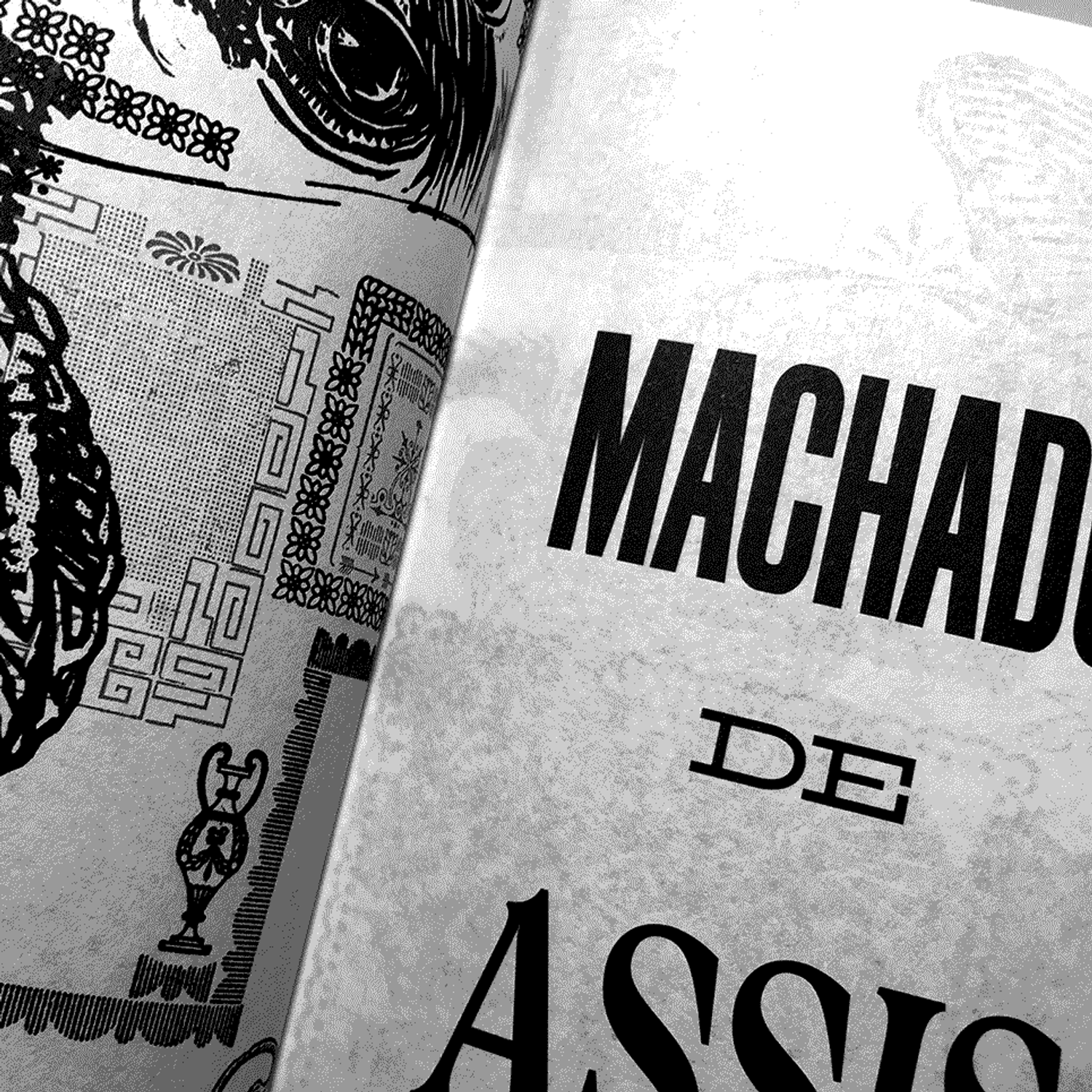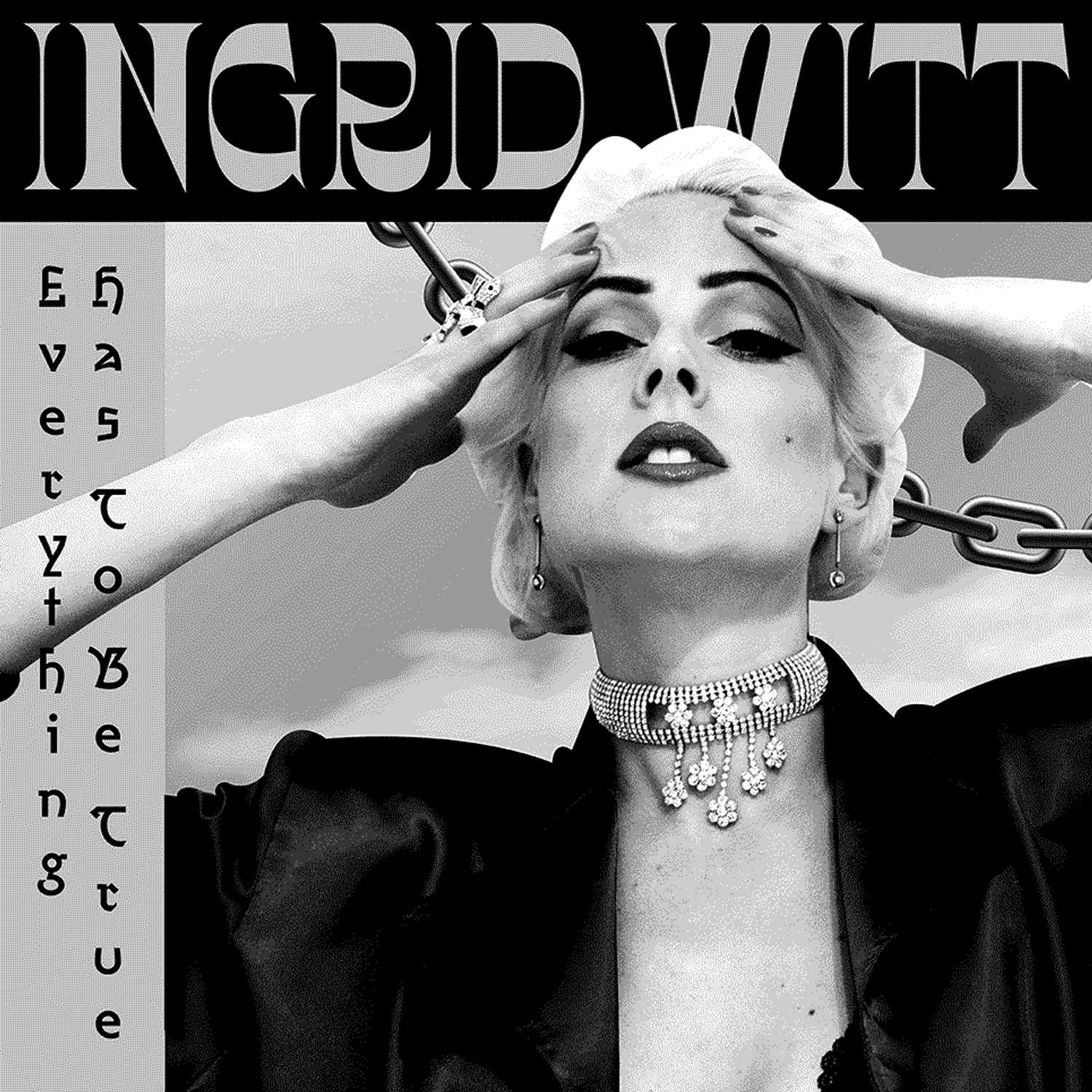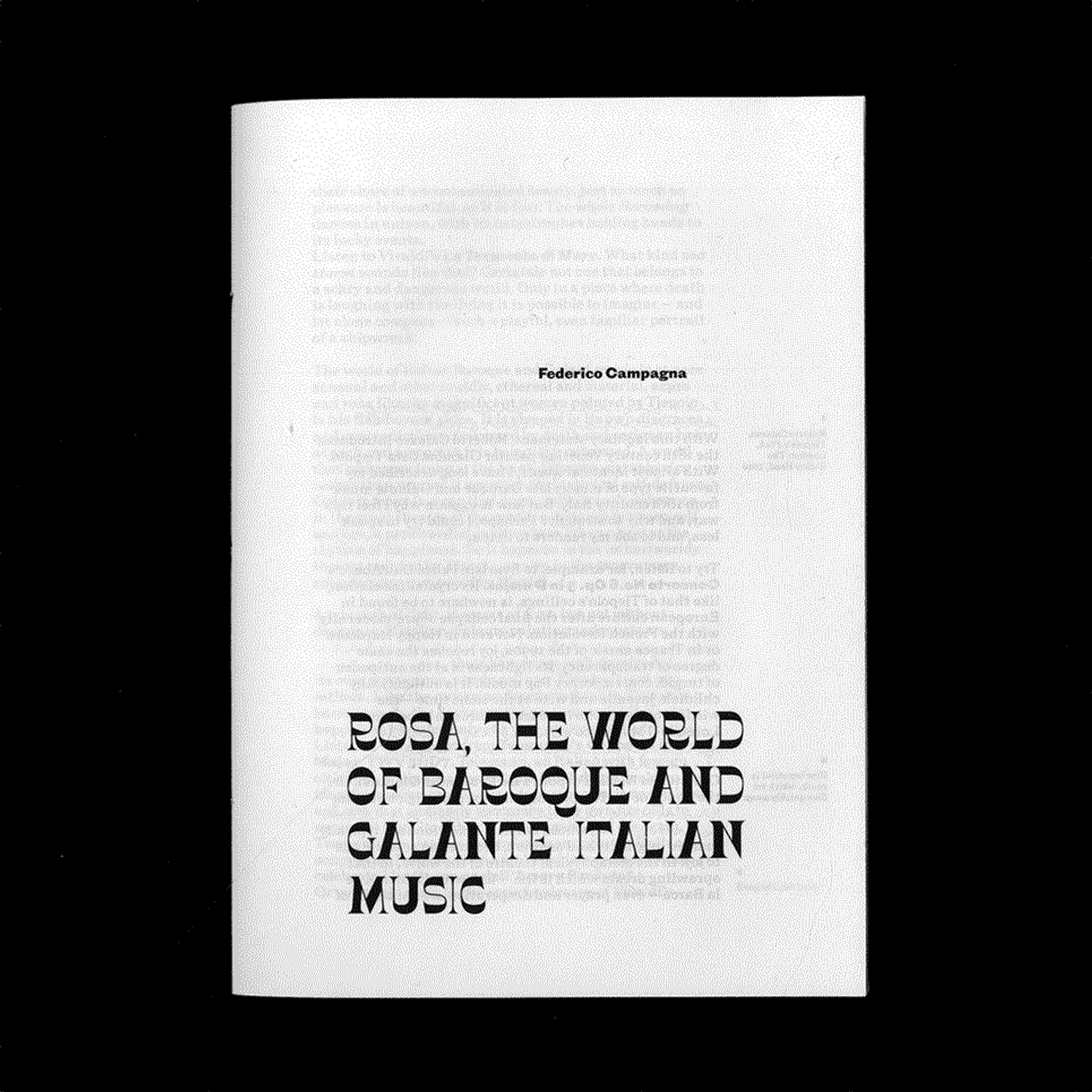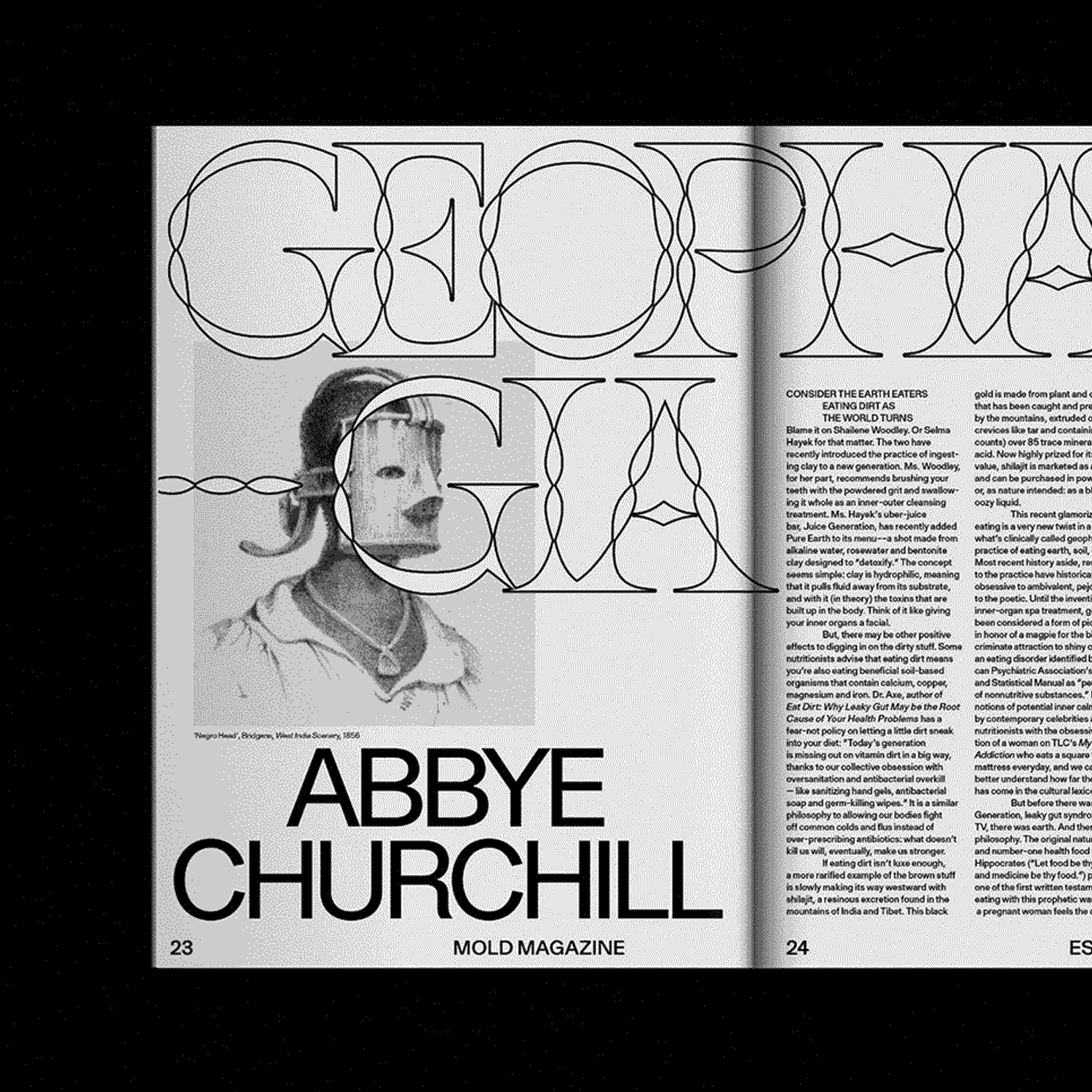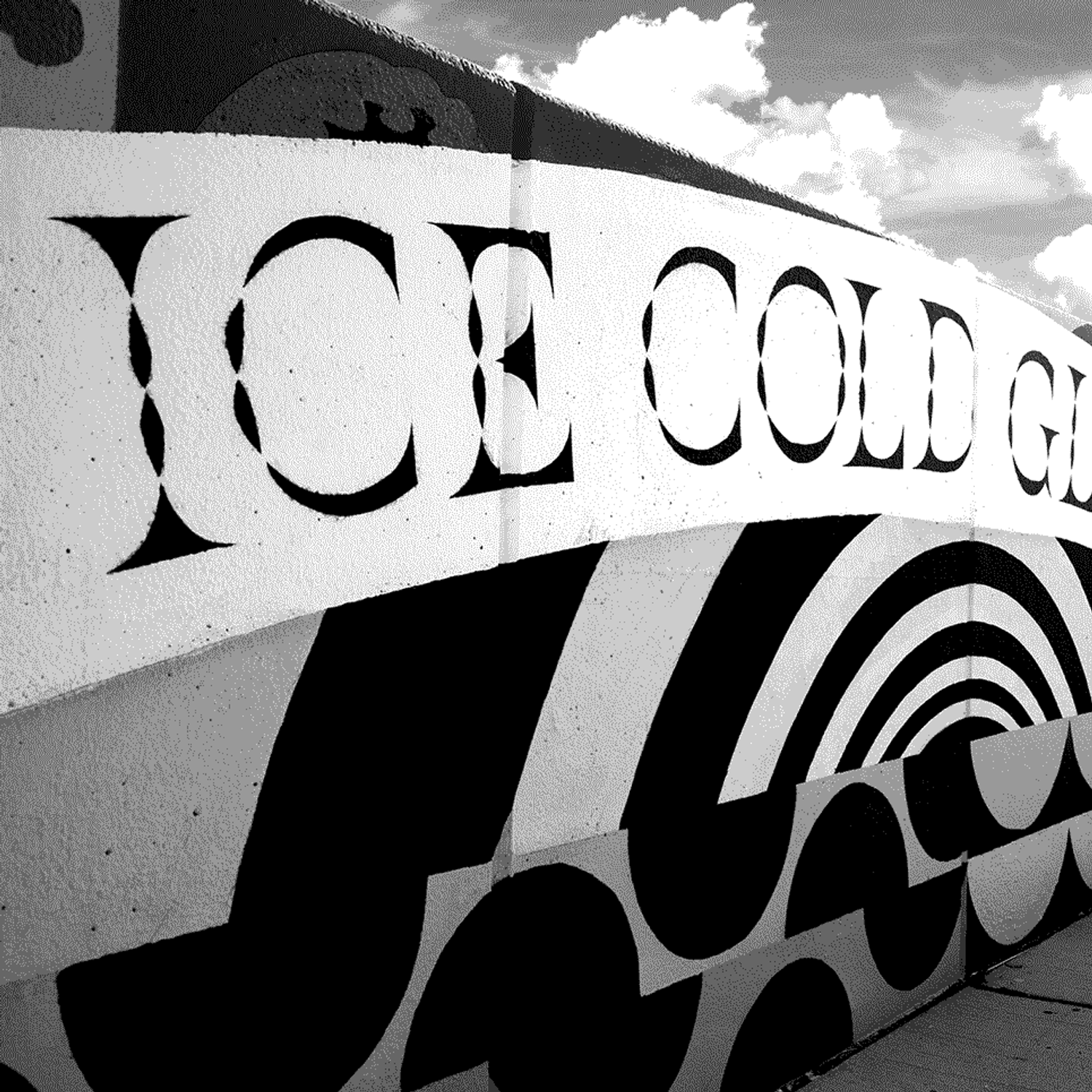
Paying tribute to the stylistic diversity of the 19th century, the Pyte Foundry offered a weekly free-font every Monday of the year 2016. With its spontaneous manufacture and limited availability, these throw-ups served as a critical playground reflecting on the desire production mechanisms intrinsic to the inaccessibility of historical material.
The Pyte Legacy Library comprises a more considered and curated selection of these Display weirdos, completely overhauled and expanded from their initial versions.
Pyte Legacy Epitome
Pyte Legacy Gyrator
Pyte Legacy Houdini
Pyte Legacy Plinth
Pyte Legacy Polymer
Pyte Legacy Vulture
EPITOME: Alternate R (ss01)
ERRUPTION
EPITOME: Alternate & (ss02)
HOME & GARDEN
EPITOME: Slashed Zero
GYRATOR: Slashed Zero (zero)
HOUDINI: Slashed Zero (zero)
PLINTH: Alternate Q (ss01)
PLINTH: Slashed Zero (zero)
POLYMER: Alternate Terminals (ss01)
POLYMER: Plain Uppercase B, P (ss02)
POLYMER: Alternate Q (ss03)
POLYMER: Ornaments (ss04)
POLYMER: Slashed Zero (zero)
VULTURE: Slashed Zero (zero)
The complete 2016 Free-Font Lunacy; re-released pytefaces in #d9d9d9 grey.
The constant strive for innovation in the 1800s led to designs showing an immense degree of imagination. Nonchalantly referring this vibrant period — moving between revival, tribute and parody — the Pyte Legacy Library digitally reintroduces some of these typographic eccentricities without indulging in unnecessary nostalgia. The aim here is not so much historical accuracy, but rather to revive the spirit of the era following the Industrial Revolution often neglected by the purist narrative of typographic history.
By conducting an iterative, modular approach akin to the evolutionary production methods of the type foundries and manufacturers of the time, reenacts the mentality of the time not only in its aesthetics but also in the making, distribution and mythologization.